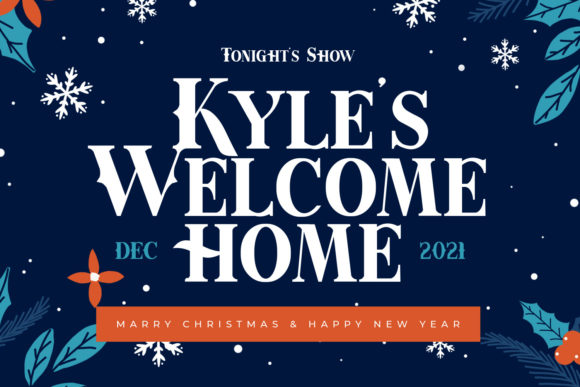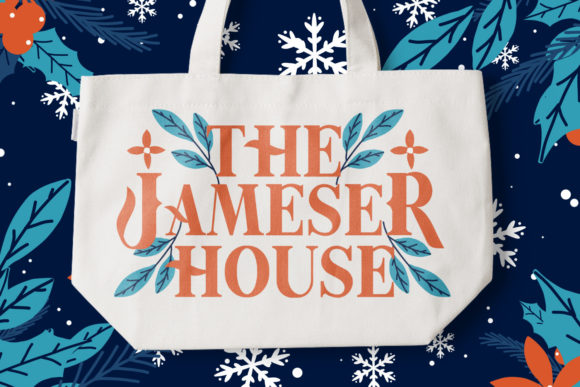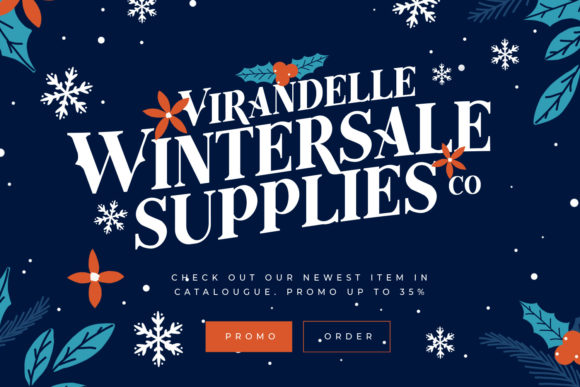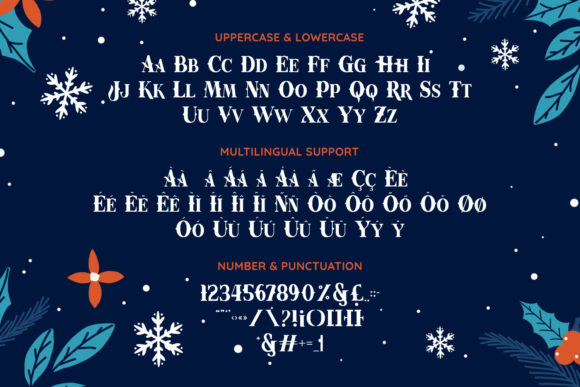
Introduction to Reyated Font
Remember that moment when you finally found the perfect design element for your creative project? The one that made everything fall into place and elevated your work to the next level? For many designers, that moment is elusive, but with the right design resources, it can become a regular occurrence. The Reyated Font is one such resource that has the potential to make a significant impact on your design library.
This cool, bold serif font is a game-changer for designers looking to add a touch of sophistication to their work. Whether you’re working on a high-quality brochure, a website, or a creative campaign, the Reyated Font is an incredible asset to have in your arsenal. With its transparent background and sleek design, it’s a versatile font that can be used across various creative projects.
Key Features of Reyated Font
- Transparent Background: This font features a transparent background, making it ideal for creative projects that require a subtle yet eye-catching design element.
- High-Quality Design: Reyated Font is a high-quality design resource that is perfect for designers, artists, and creatives who demand the best.
- Unique Characteristics: This font features a unique blend of modern and vintage elements, making it perfect for creative projects that require a touch of elegance and sophistication.
- Perfect for Design Projects: This font is perfect for creative projects, such as logos, branding materials, business cards, and other design elements that require a high level of sophistication and elegance.
Honest Review: Reyated Font
As a designer, I’m always on the lookout for high-quality design resources to elevate my creative projects. Recently, I had the chance to try out the Reyated Font, and I’m excited to share my honest review.
What works well: ✨ The Reyated Font has a unique, modern aesthetic that’s perfect for a variety of design applications. Its transparent background makes it easy to use on both light and dark backgrounds, and its high-quality design ensures that it looks crisp and clear even at large sizes.
- Unique, modern aesthetic
- High-quality design for crisp results
Limitations: ⚠️ While the Reyated Font is a great addition to any designer’s toolkit, it does have some limitations. The font family is relatively small, with only a few styles available for download. Additionally, some users may find the font to be a bit too bold or overpowering in certain contexts.
Tips for Getting the Most Out of Reyated Font
For the best results, use Reyated Font with a transparent background to create a modern and sleek design. Experiment with different font sizes and styles to add depth and visual interest to your creative project.
Reyated Font is perfect for various design projects, including:
- Creative logos and branding